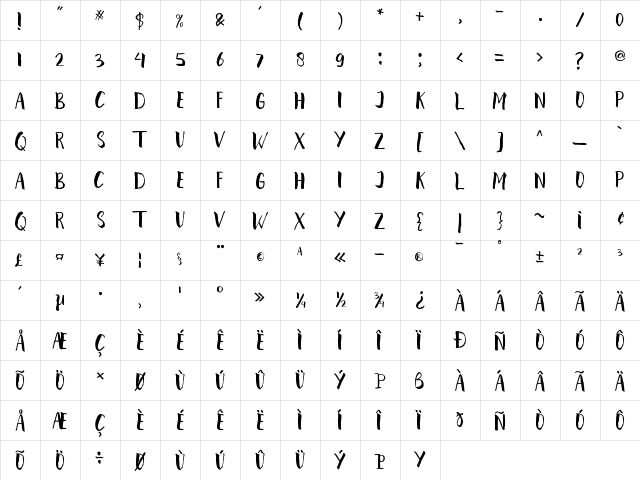
karian Regular
| Foundry | Nur Solikh / Flamde Studio |
| Designer | Nur Solikh |
Design Context for karian Typeface
karian is a composed and adaptable typeface that performs quietly and consistently across a wide range of design contexts.